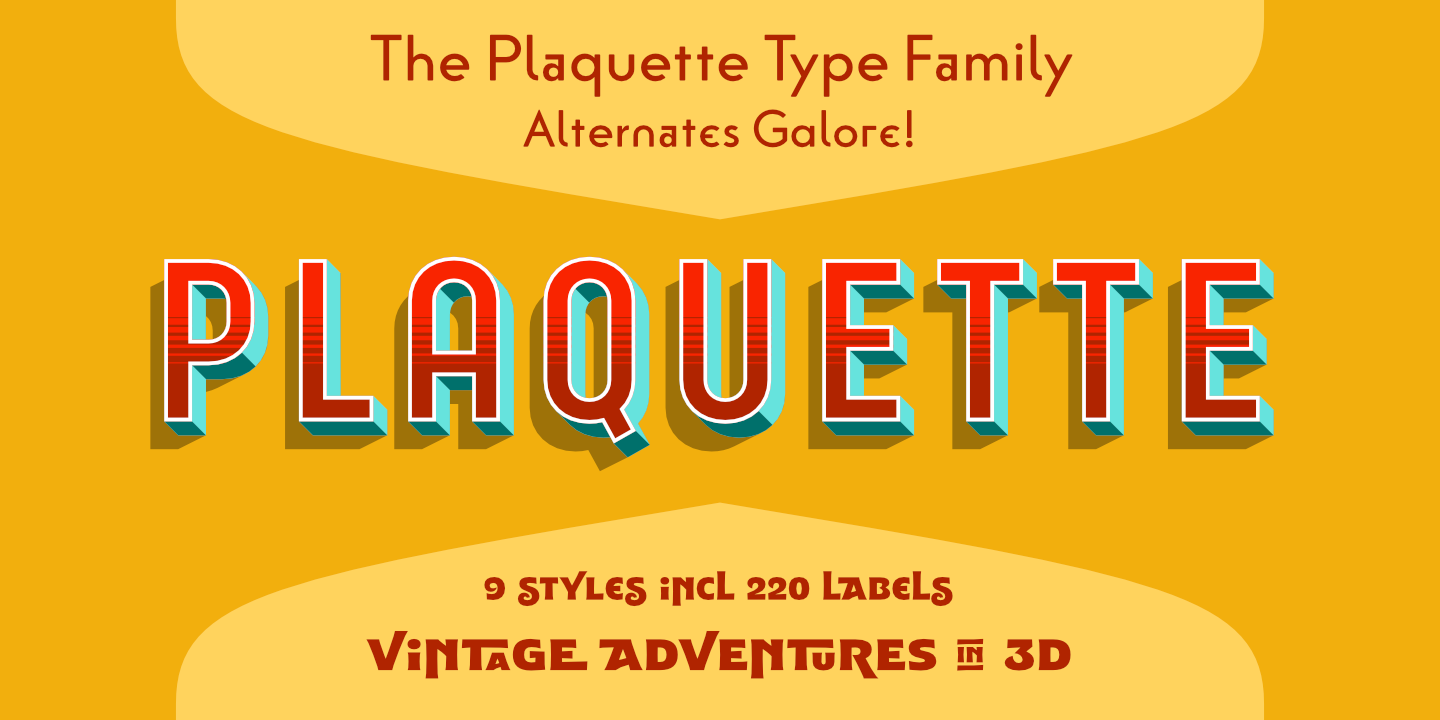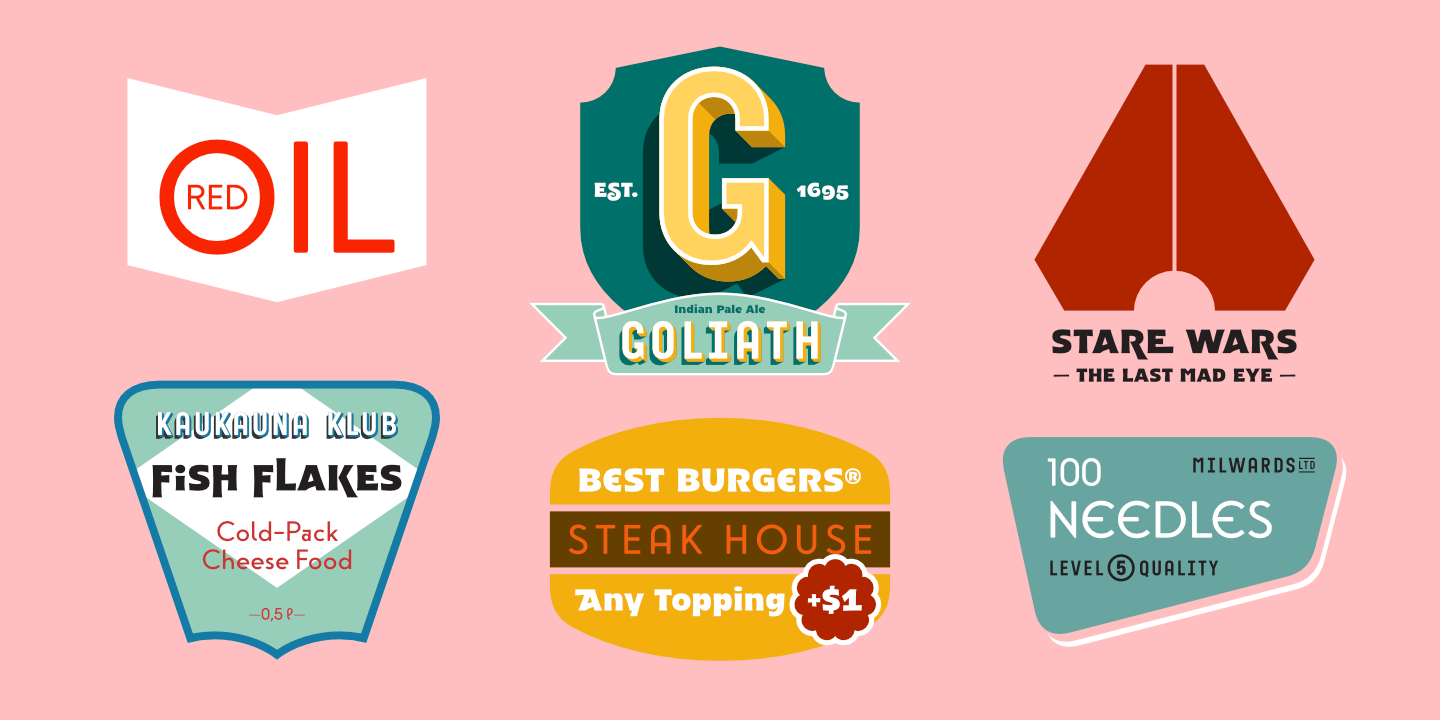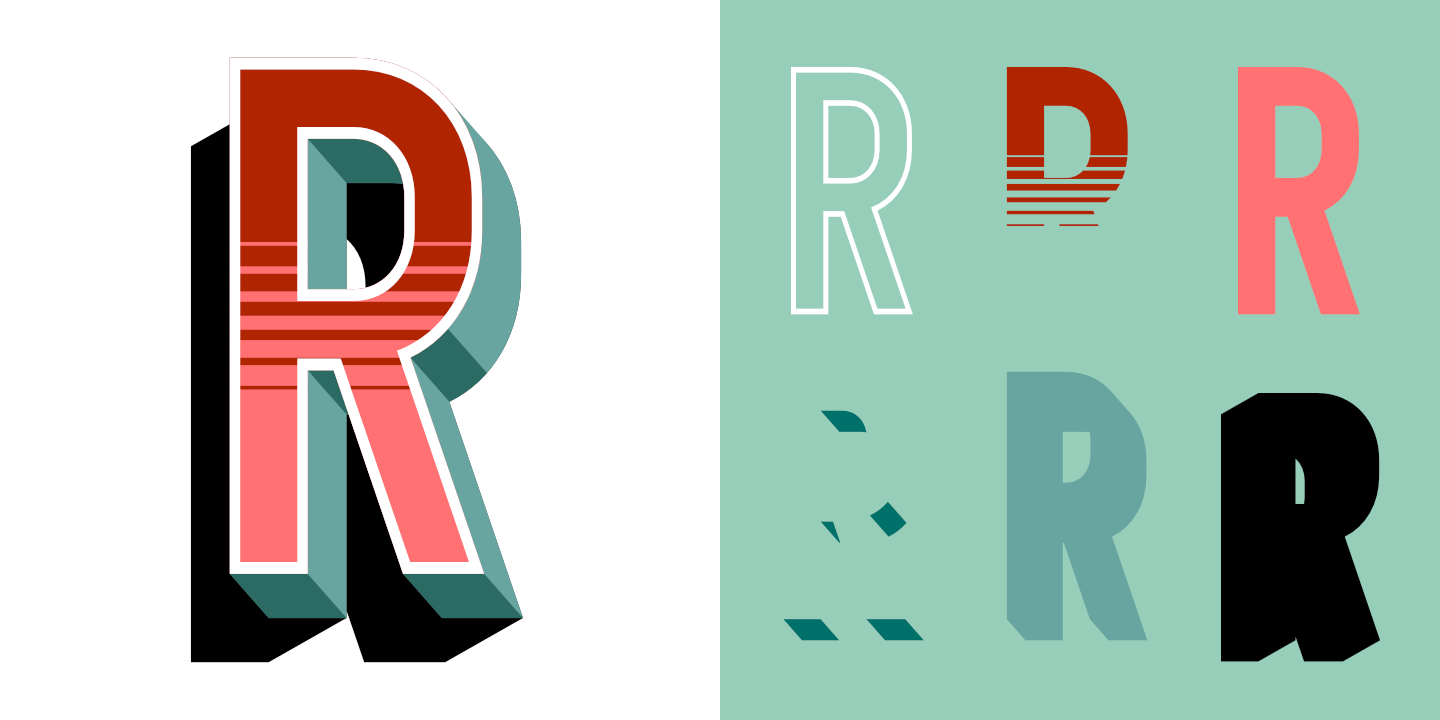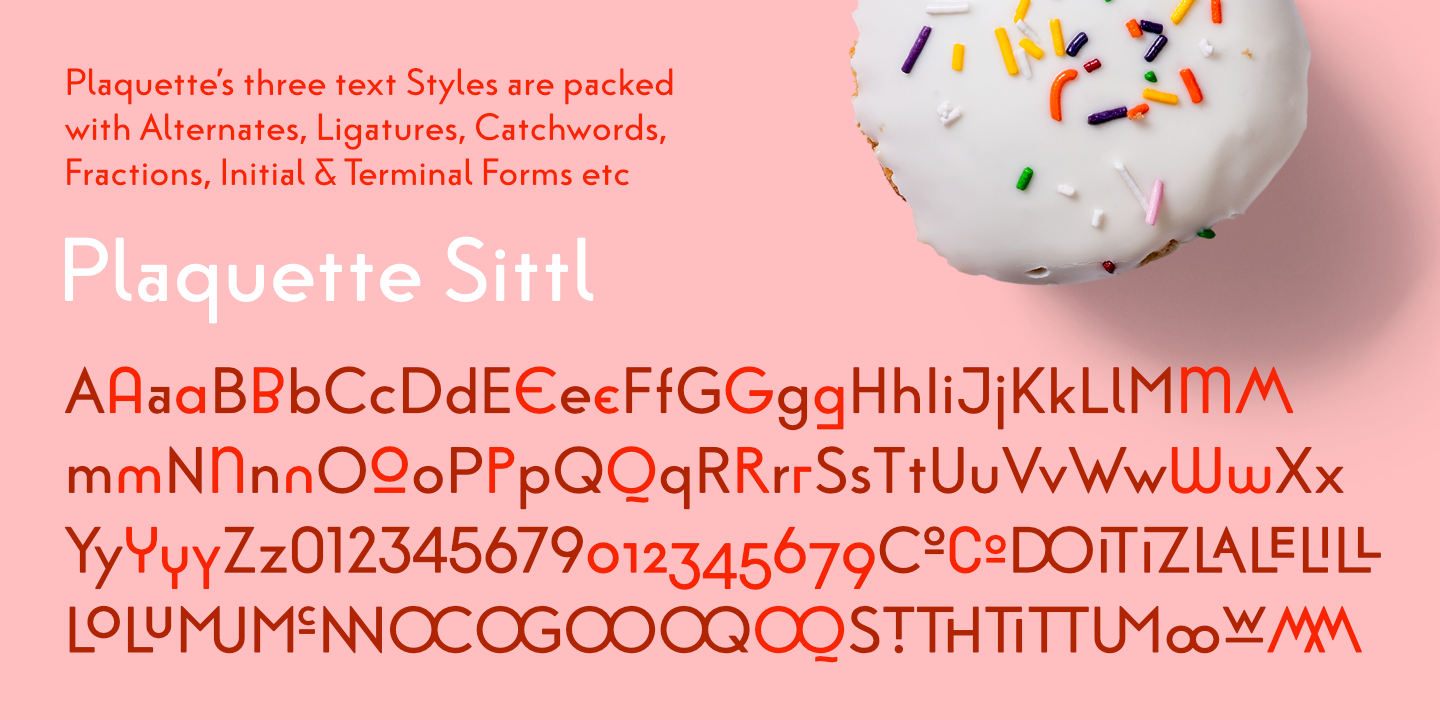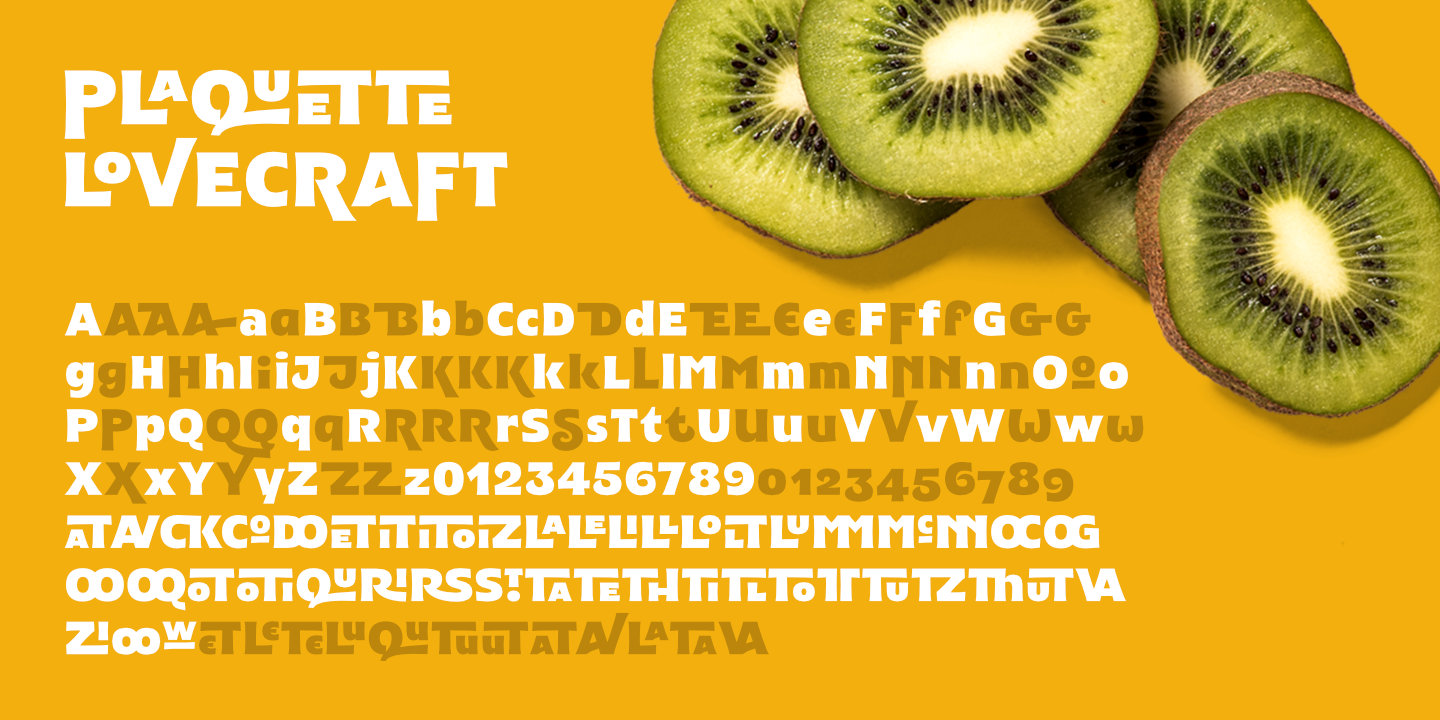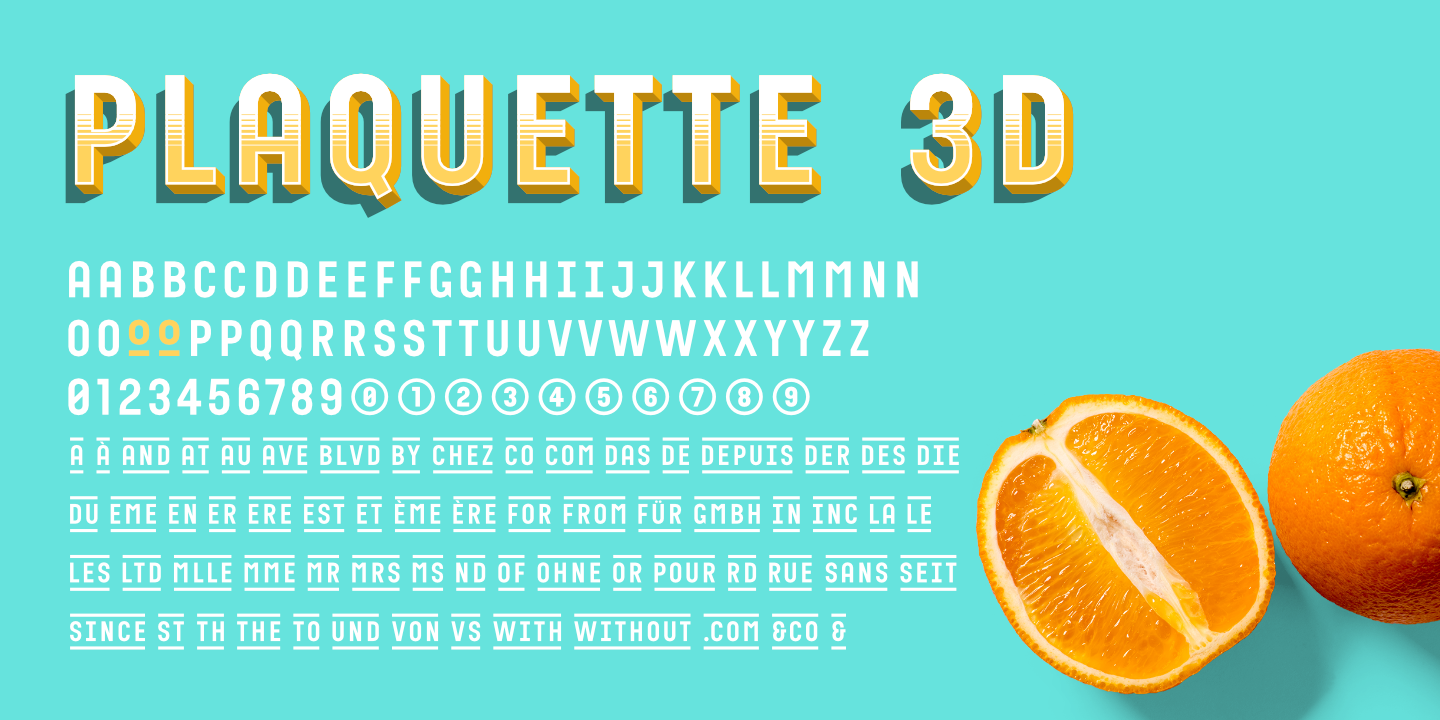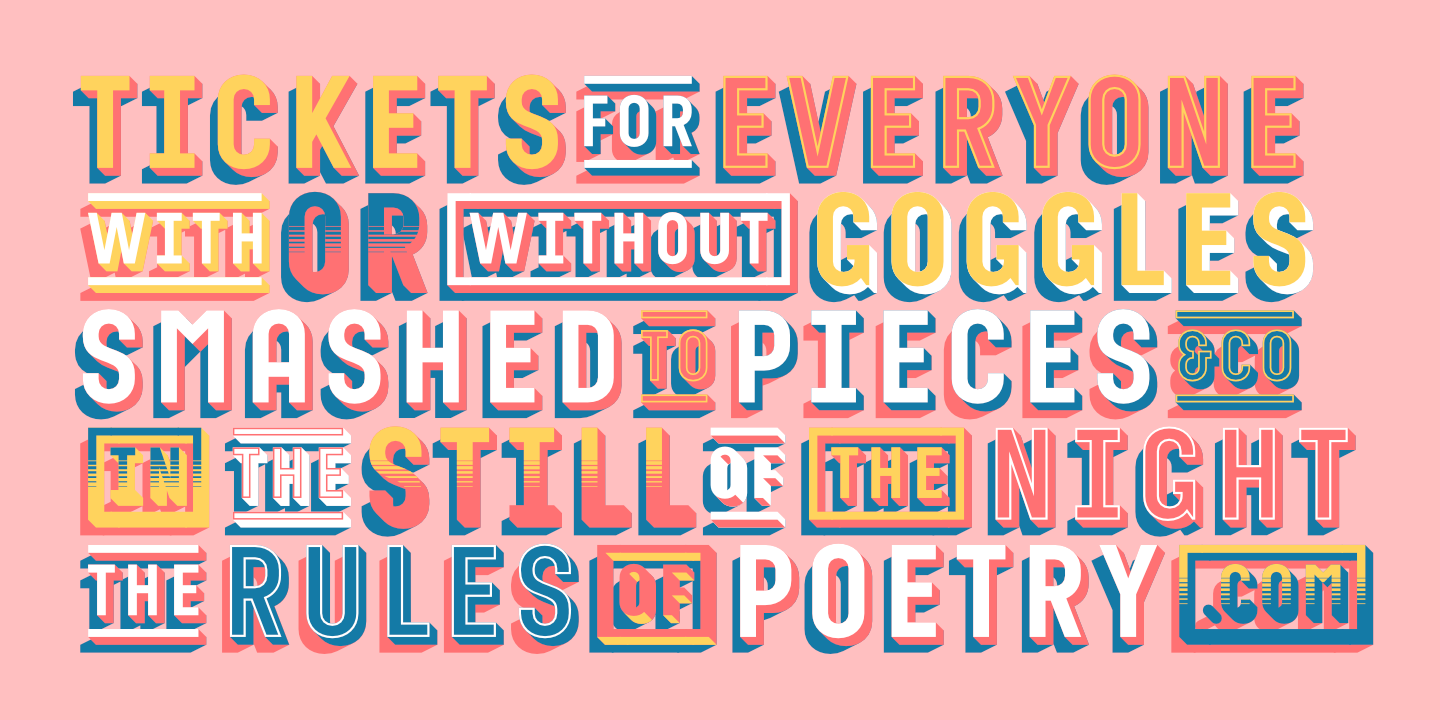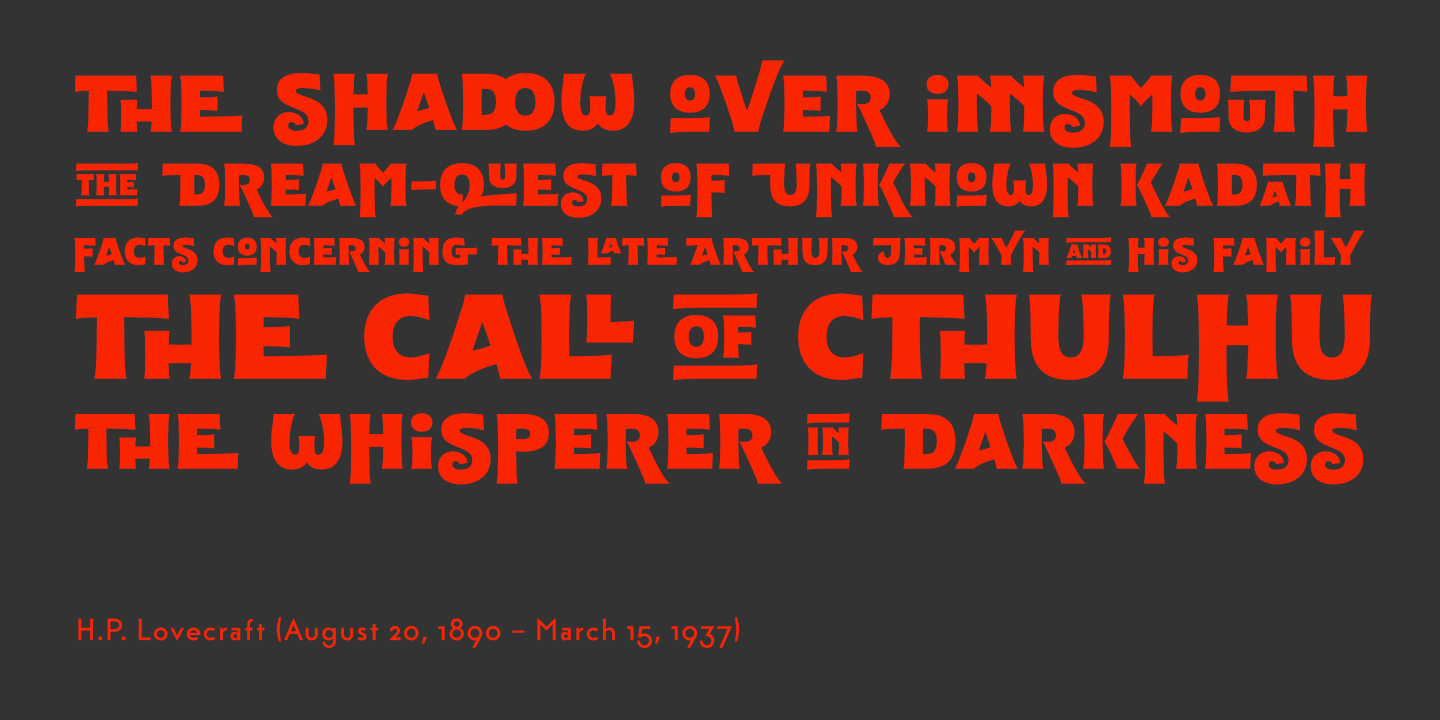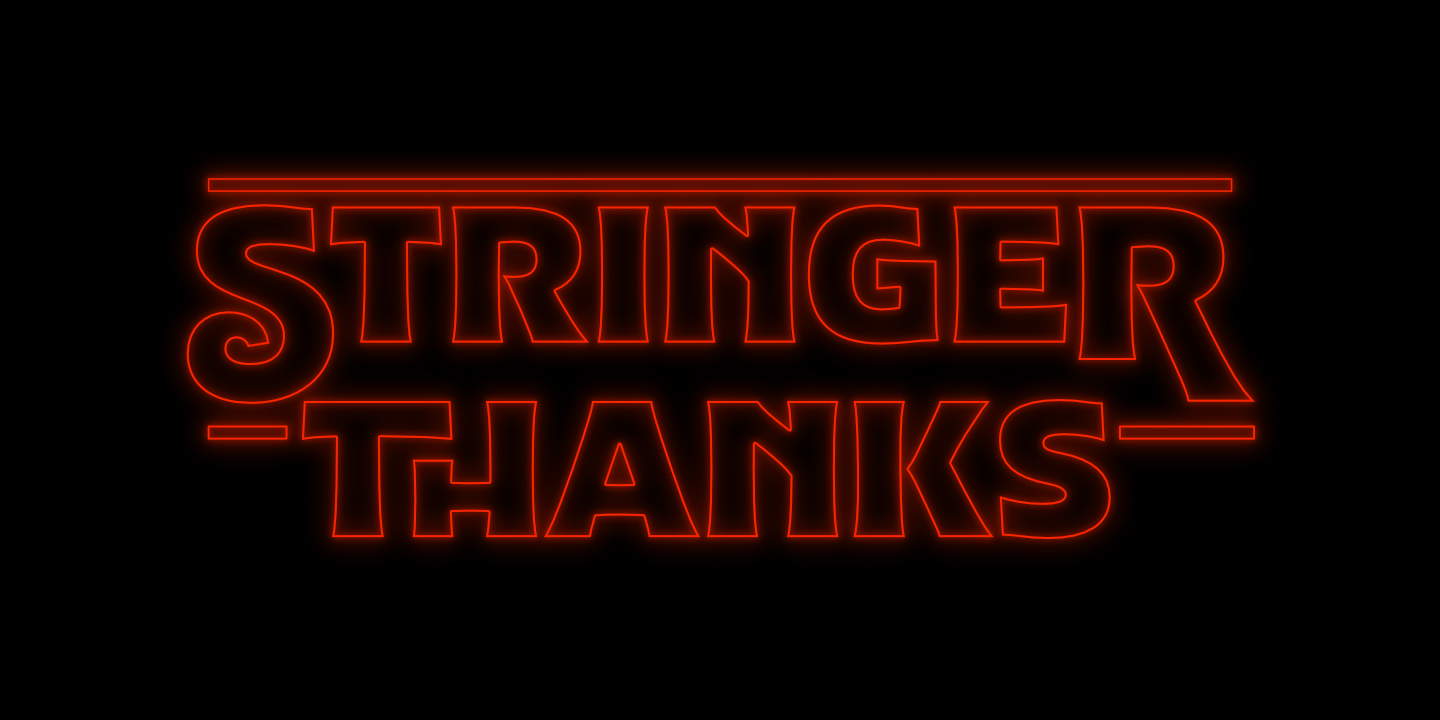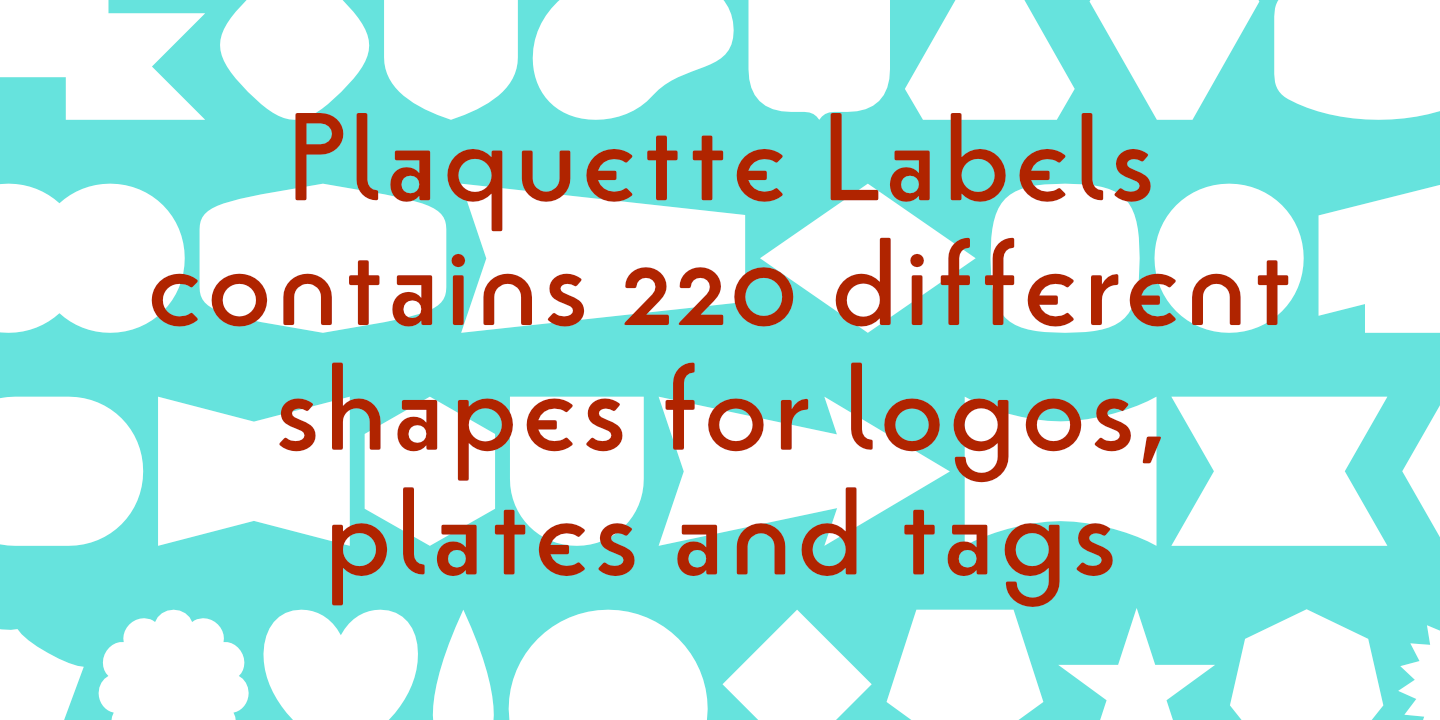
The ‘Plaquette’ family is a collection of retro fonts ranging from Victorian to Bauhaus to the sixties. They are all equipped with a load of OpenType features such as alternates, catchwords, stylistics sets and others.
Plaquette 3D: A chromatic set of fonts including gradient and outline layers. Crisp and precise.
Plaquette Lovecraft: A vintage typeface with some sweet discretionary ligatures to make your typography exciting. Take a look at the many alternates.
Plaquette Sittl: A clean geometric style with many alternative letters, some inspired by Paul Renner’s original Futura.
Plaquette Labels: This set provides 220 different shapes ideal for logos, plates and… labels.